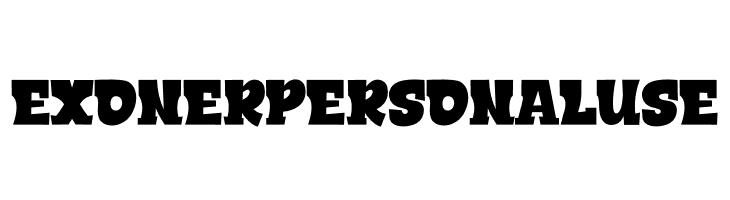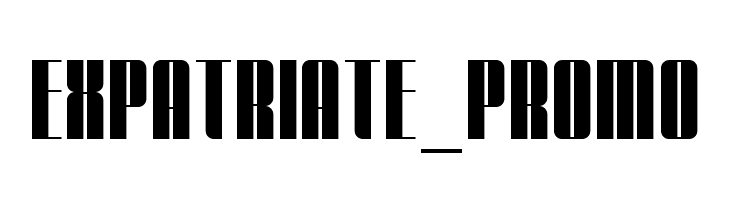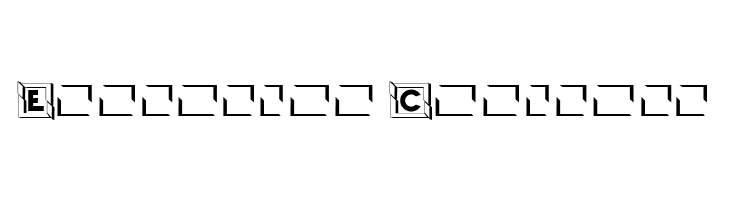
A bold, geometric font with tall, narrow characters and sharp edges.
A playful, casual handwritten font with rounded edges and uniform thickness.
A futuristic, geometric font with sharp angles and a digital aesthetic.
A bold, decorative font with a three-dimensional, embossed style.
A playful, handwritten font with irregular strokes and a casual vibe.
A modern, geometric sans-serif font with clean lines and balanced proportions.